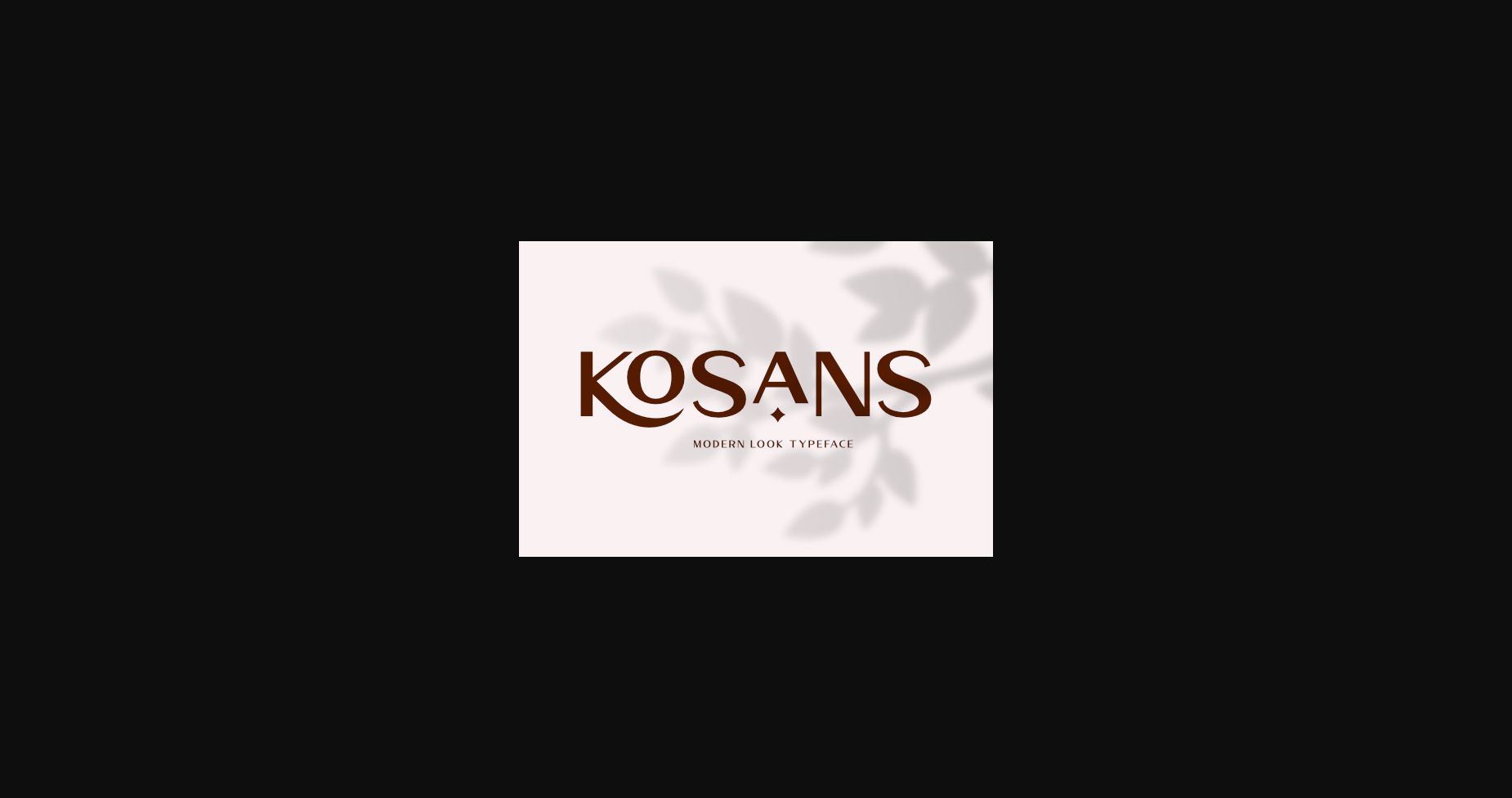
About Kosans Font
Kosans is a modern sans serif font. Its flexibility and neat style will brighten up each of your designs. Have fun with this cool font and explore its endless variations.